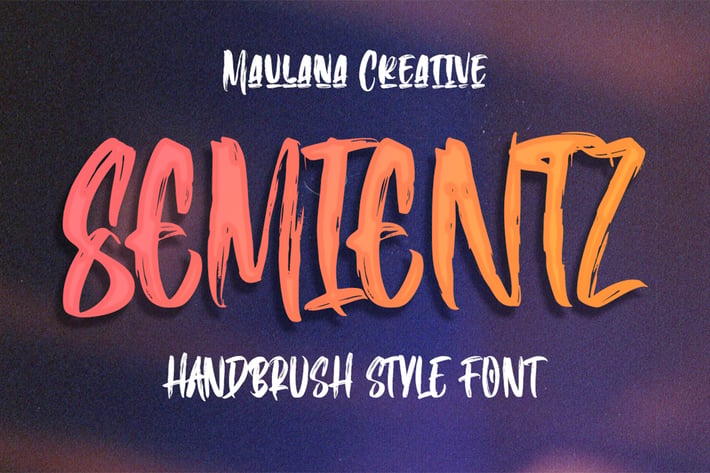
Semientz Handbrush Style Font
Semientz Rought Font . Strong character with a bit of ligatures and alternates. To give you an extra creative work. Crankstock font support multilingual more than 100+ language. This font is good for logo design, Social media, Movie Titles, Books Titles, a short text even a long text letter and good for your secondary text font with Signature. Make a stunning work with Semientz font.